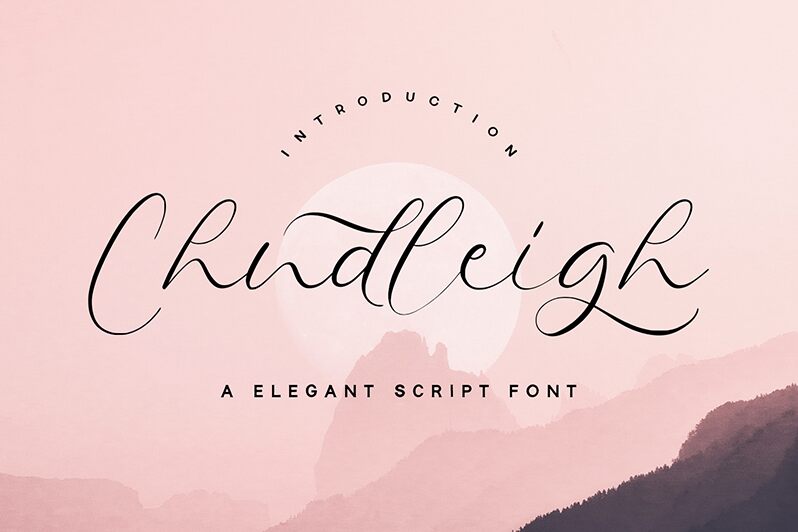
Chudleigh
Chudleigh font, designed by Alpaprana Studio, is a beautiful calligraphy light font that embodies elegance and sophistication. Its graceful, flowing style gives it a script-like look suitable for modern communication. With an overall balanced look of gentle lines, its identity exudes a sense of movement and airiness which is present in every word you write.
With these outstanding features in mind, Chudleigh turns out to be the best free calligraphy font for feminine-focused designs like clothes branding, cosmetics labels, or biscuit packaging. Beyond those simple uses, it can also be featured in restaurant menus and bills of fare as well as invitation cards and greeting notes. Enjoy running this stylish legible typeface on printed magazines, apparel boxes (shoes or bags), or social media posts’ headers both commercial brand pages or individuals’ accounts.